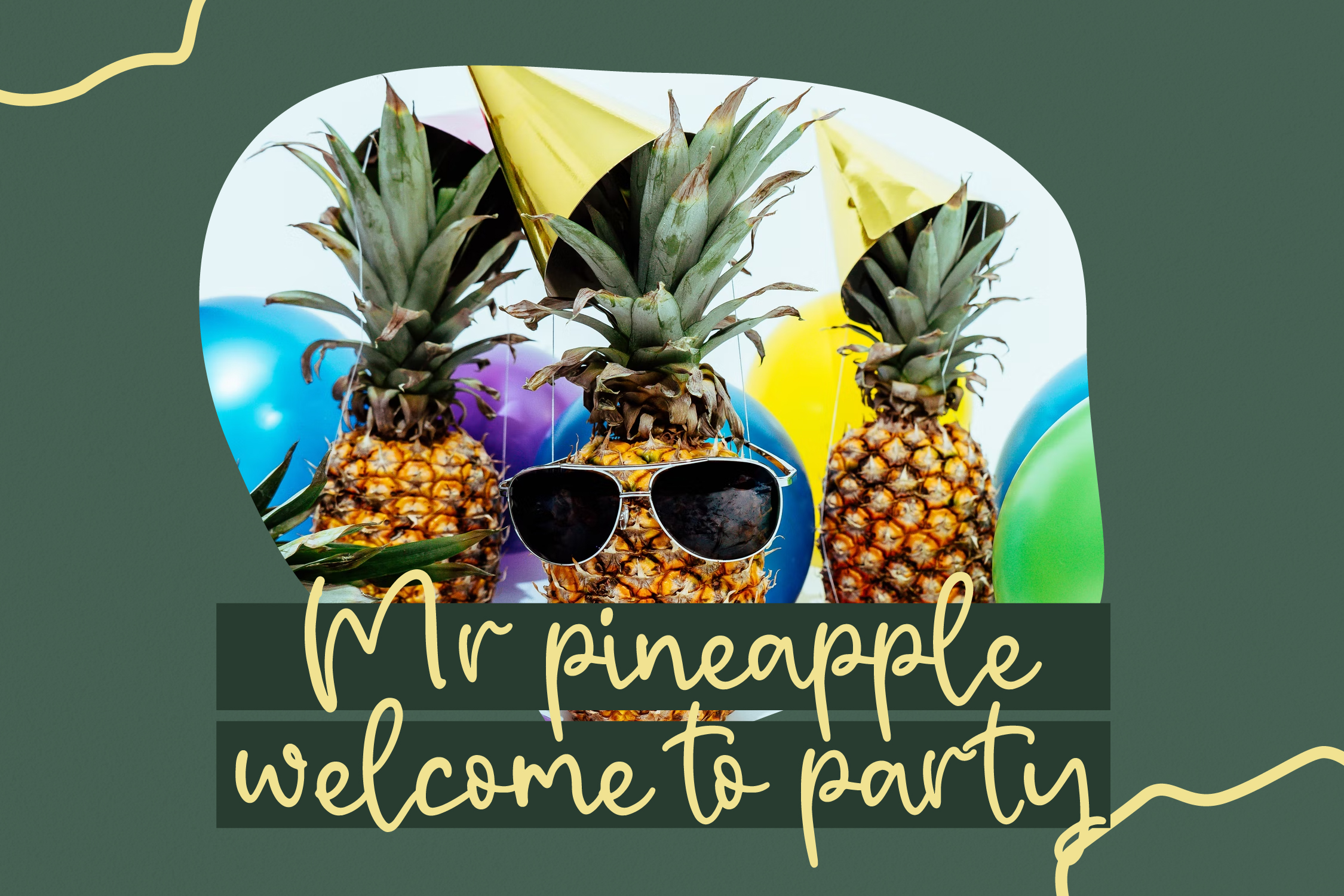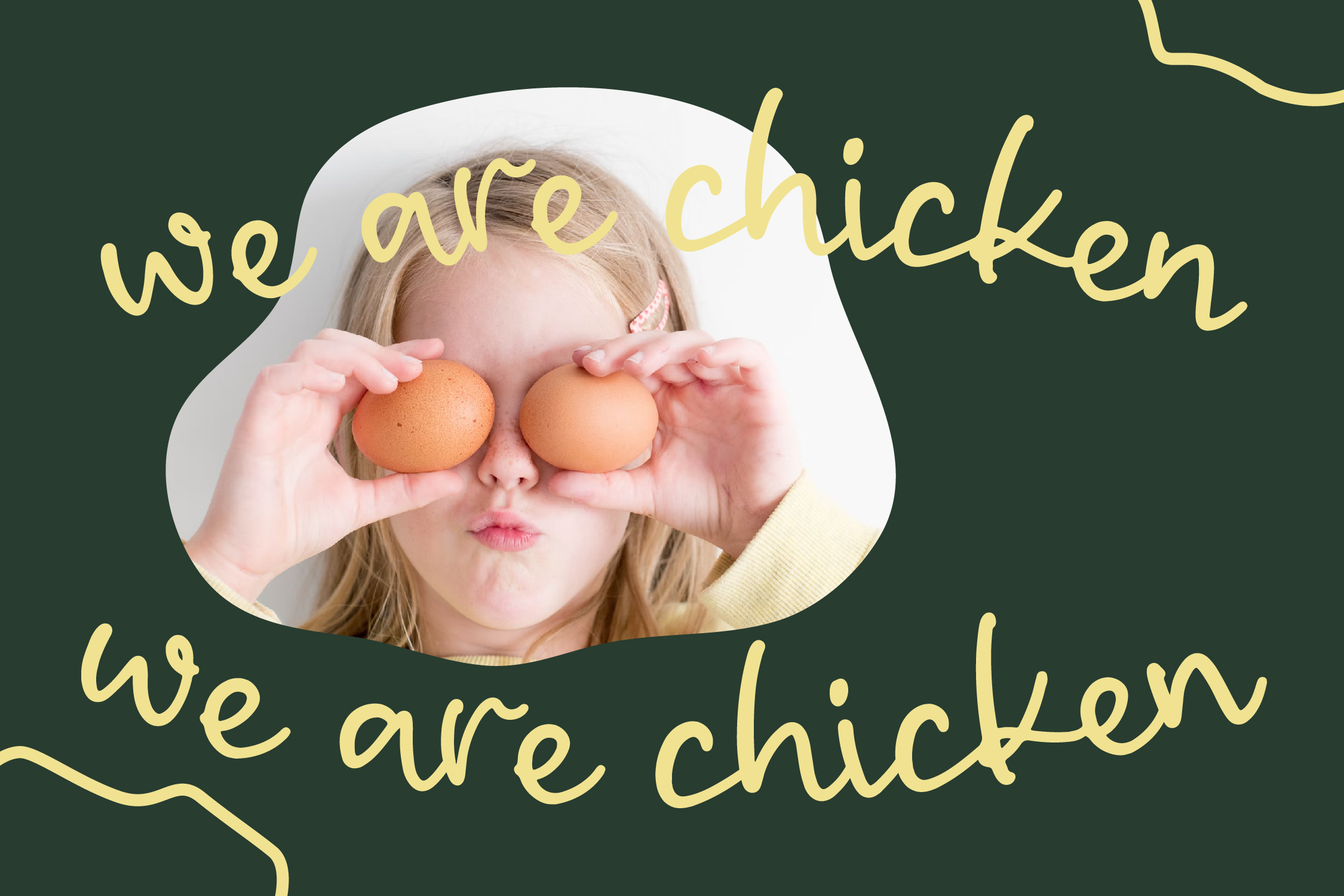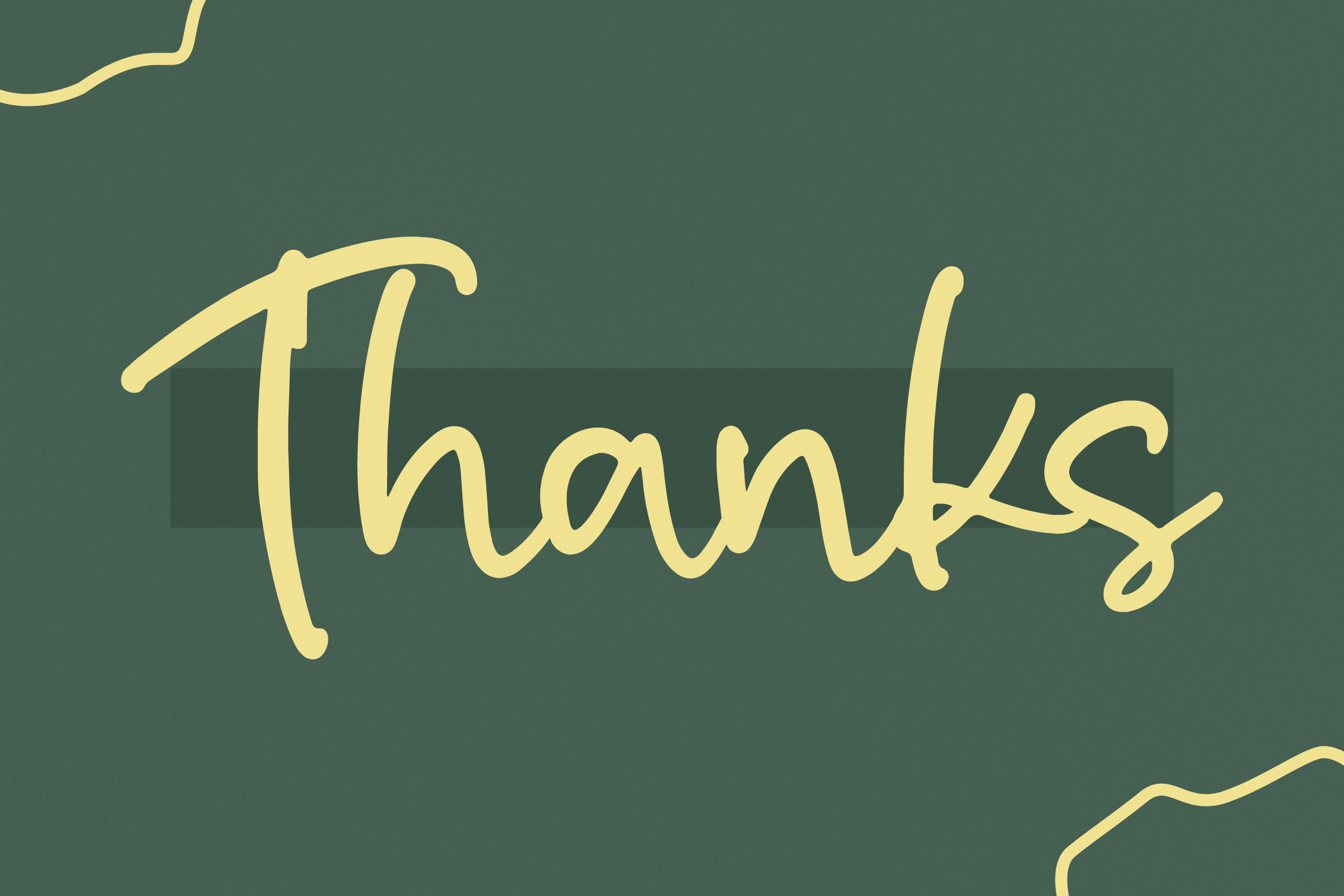
Disckey Font
Disckey Script Font
This is a Handwritten Font, suitable for any projects such as: logos, branding projects, homeware designs, product packaging, mugs, quotes, posters, shopping bags, t-shirts, book covers, name card, invitation cards, greeting cards, label, photography, watermark, special events, and all your other lovely projects that need a beautiful script taste.